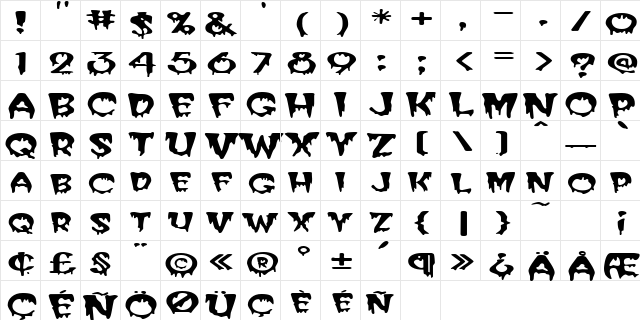
CreeperExtended Regular
CreeperExtended Family
CreeperExtended Regular
Design Context for CreeperExtended
CreeperExtended carries an unsettling edge - its distorted letterforms are built to unsettle, perfectly suited to horror, Halloween, and dark creative work.
Font Pairing: Pair with a clean neutral sans-serif for body copy to let CreeperExtended's character lead without overwhelming the composition.
Pro Tip: Use CreeperExtended at larger display sizes for maximum impact. Consider generous tracking to let the disturbing character of each letterform breathe.